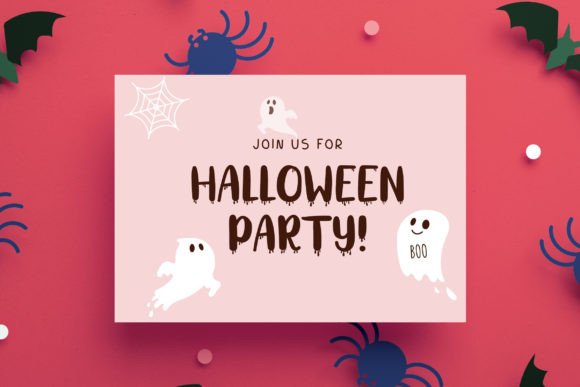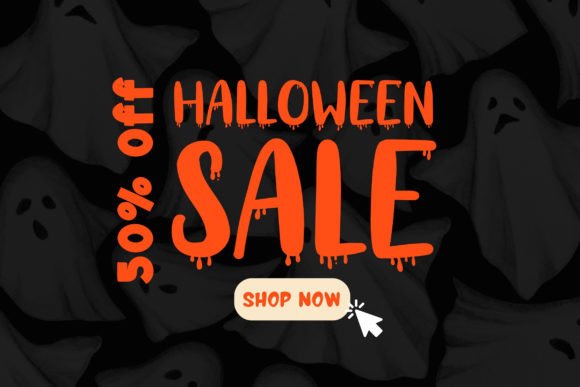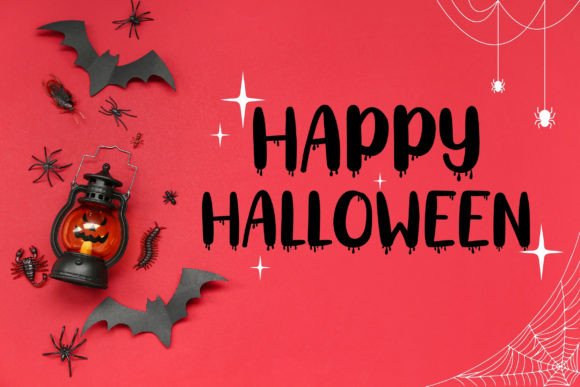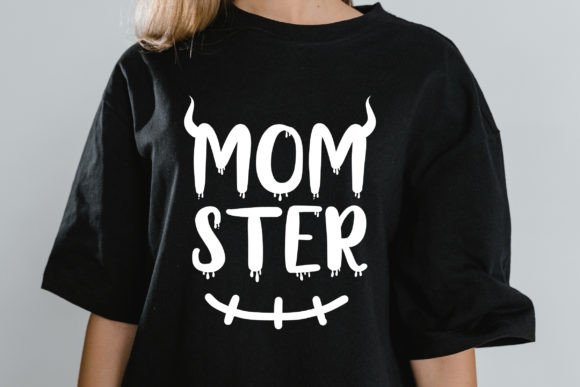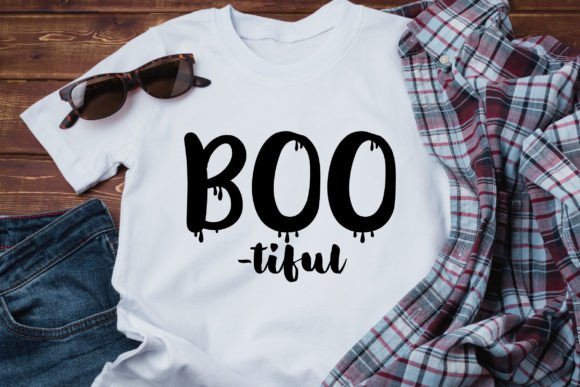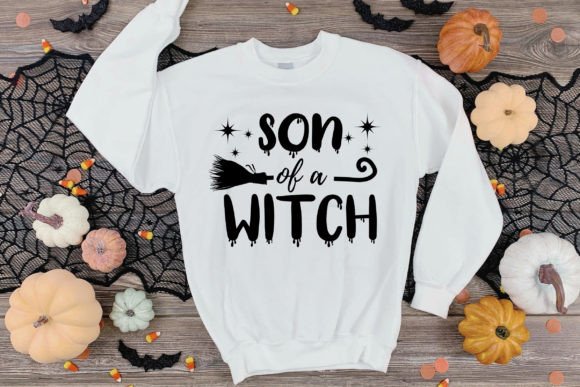
Bloody Halloween Font: Add a Touch of Eerie Fun to Your Designs
Are you looking for a unique and playful font to add a spooky touch to your Halloween designs? Look no further than the Bloody Halloween Font! This display font combines the eerie details of blood drops with a charming handwritten style, making it perfect for a variety of creative projects.
What is Bloody Halloween Font?
Bloody Halloween Font is a specially designed font that captures the essence of Halloween with its spooky and playful design. The font features handwritten-style letters with drops of blood scattered throughout, giving it a unique and eerie feel. The font is perfect for designers and crafters who want to add a touch of Halloween spirit to their work.
Key Features of Bloody Halloween Font
- Playful and Spooky Design: The font features a playful and spooky design that is perfect for Halloween-themed projects.
- Handwritten-Style Letters: The font has a charming handwritten style that gives it a personal touch.
- Blood Drop Details: The font features drops of blood scattered throughout, adding to its eerie and spooky feel.
- Versatile: The font can be used for a variety of projects, including posters, quotes, T-shirts, branding, and more.
Uses of Bloody Halloween Font
Bloody Halloween Font is a versatile font that can be used for a variety of creative projects. Here are some ideas to get you started:
- Halloween Posters: Use the font to create spooky and eye-catching posters for Halloween parties, haunted houses, or other Halloween-themed events.
- T-Shirts and Apparel: Add a touch of Halloween spirit to your T-shirts, hoodies, and other apparel with the Bloody Halloween Font.
- Branding and Packaging: Use the font to create unique and eye-catching branding and packaging for your Halloween-themed products.
- Custom DIY Craft Projects: Add a personal touch to your DIY craft projects, such as Halloween decorations, cards, and gift tags.
- Personalized Names: Use the font to create personalized names and titles for your Halloween-themed projects.
Why Choose Bloody Halloween Font?
There are many reasons why Bloody Halloween Font is the perfect choice for your Halloween designs. Here are a few:
- Unique Design: The font has a unique and playful design that will set your projects apart from others.
Tips for Using Bloody Halloween Font
Here are a few tips for using Bloody Halloween Font:
- Experiment with Different Sizes: Experiment with different font sizes to create a unique and eye-catching design.
- Combine with Other Fonts: Combine the Bloody Halloween Font with other fonts to create a unique and interesting design.
- Use in Combination with Images: Use the font in combination with images to create a spooky and eye-catching design.
Bloody Halloween Font is a unique and playful font that is perfect for adding a touch of eerie fun to your Halloween designs. With its spooky drops of blood details and charming handwritten style, this font is sure to set your projects apart from others. Whether you’re a designer or crafter, Bloody Halloween Font is a great choice for any Halloween-themed project.